Best fonts for Logo who are struggling to find.š£
It is not easy to find best fonts for logo, I literally spend sometimes hours to find the right font that will work with the brand I am working on, so here is a head start for those struggling!ā¤ļø
Font choice is a critical element of logo design. By changing your logo font, you can completely change your brandās mood and message. Your font even has the power to influence your customerāsĀ thoughts and emotions!
Kraliba
Kraliba is an eye-catching display serif font suitable for use in logos, branding ideas and designs, homeware products packaging designs, homeware packaging designs mugs posters quotes shopping bags t-shirts book covers.
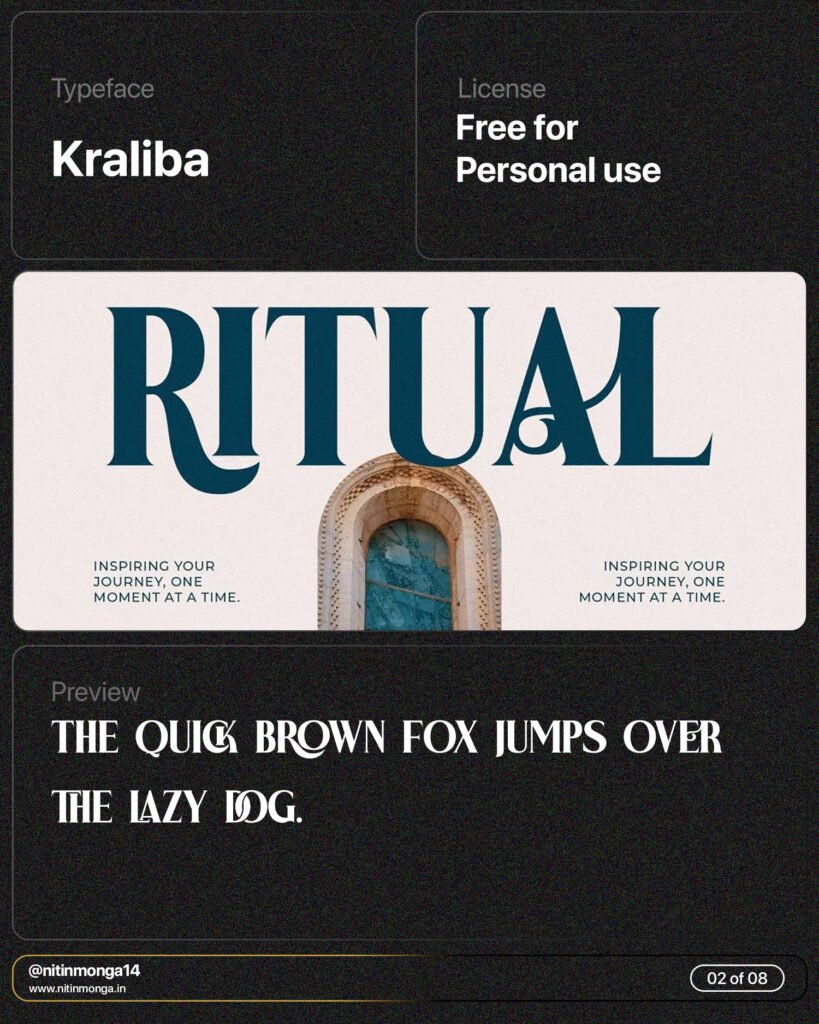
Gold Badge
Gold Badge separators make an eye-catching statement in any creative project that calls for elegant, modern and chic designs, such as logos, titles covers, magazine displays and much more. Choose Gold Badge today to create unforgettable branding!
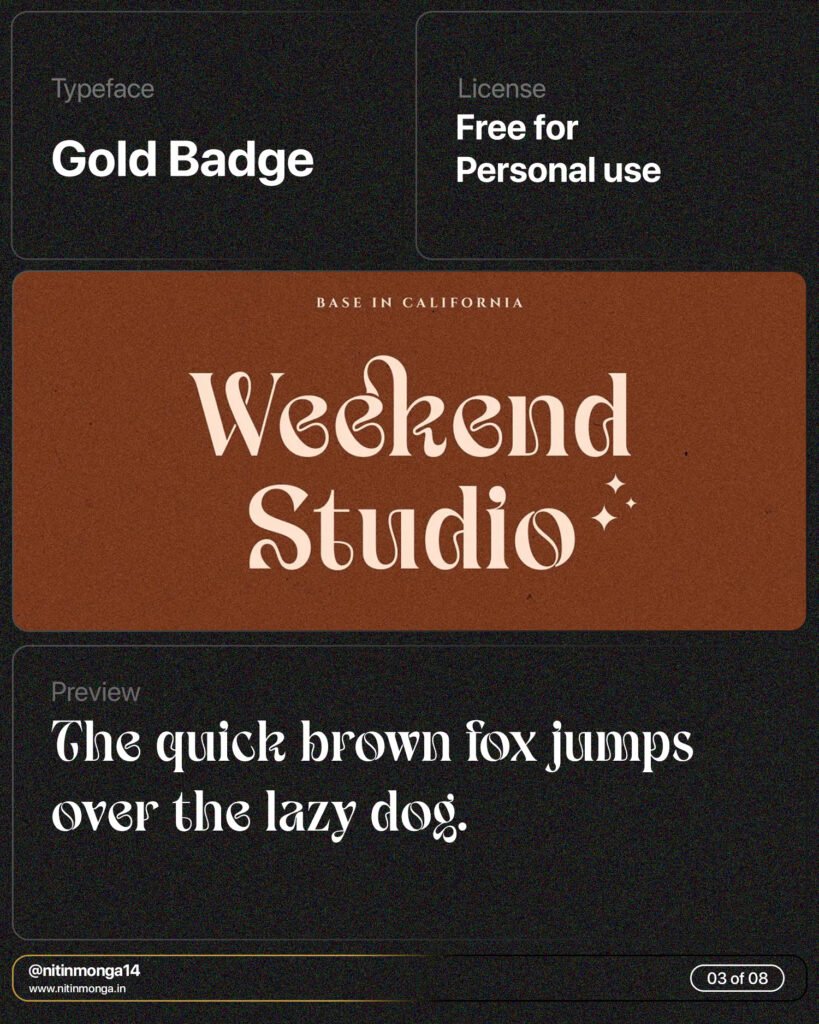
Hasbook
HASBOOK Contemporary The Logo Font, Crafted With Deliberation and Elegance is ideal for logos, web sites and editorial design applications.Ā
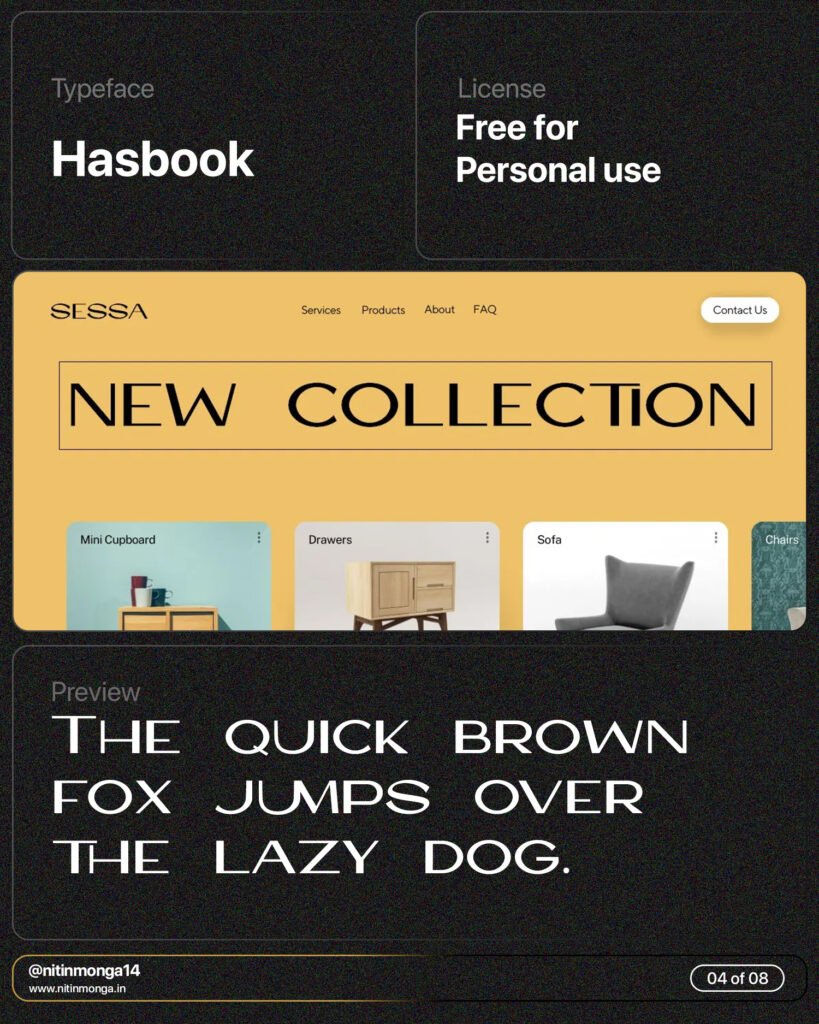
Notica
Notica Serif Font to reflect romantic feelings while remaining contemporary yet luxurious; ideal for logo designs, posters, crafts books, branding projects, prints invitations packaging labels wedding and any other project you might need it for!
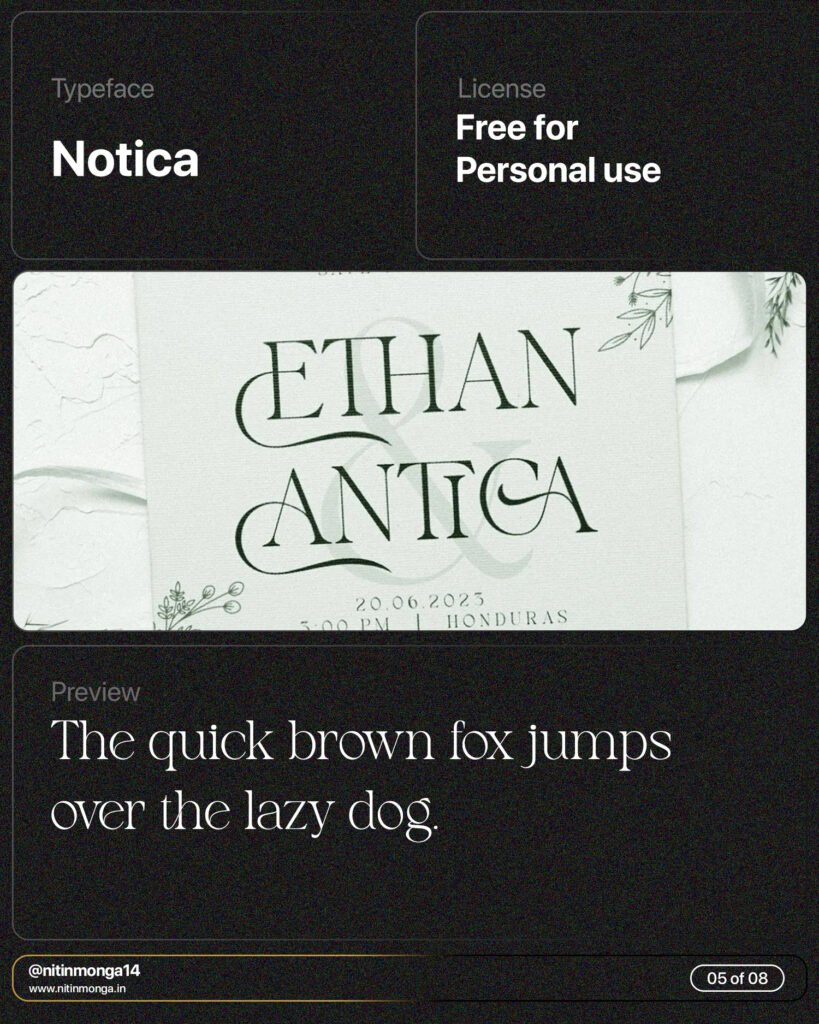
Vestha
Vestha is an exquisite serif font with an eye-catching form. Many professional brands require an appealing logo to successfully represent themselves, which was why I created Opsi.Ā
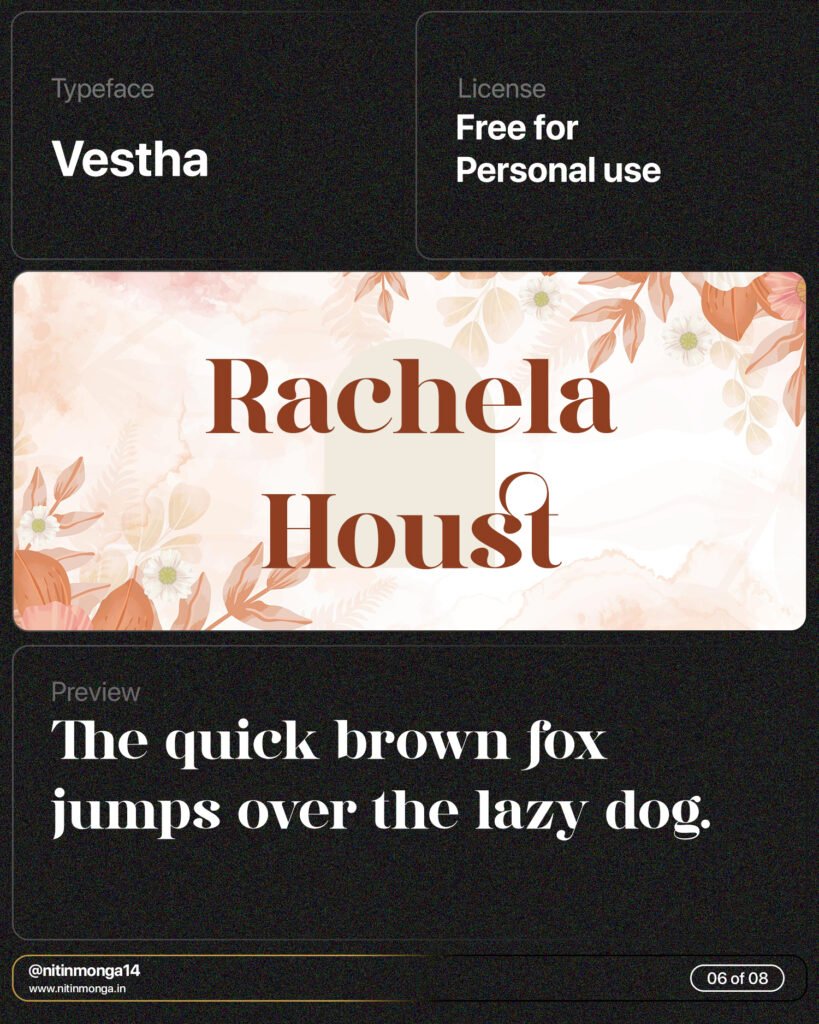
Largest Genome
Largest Genome Font is classic sans serif typeface boasts a modern and clean appearance, making it the ideal choice for logos packaging branding posters social media posts and more.